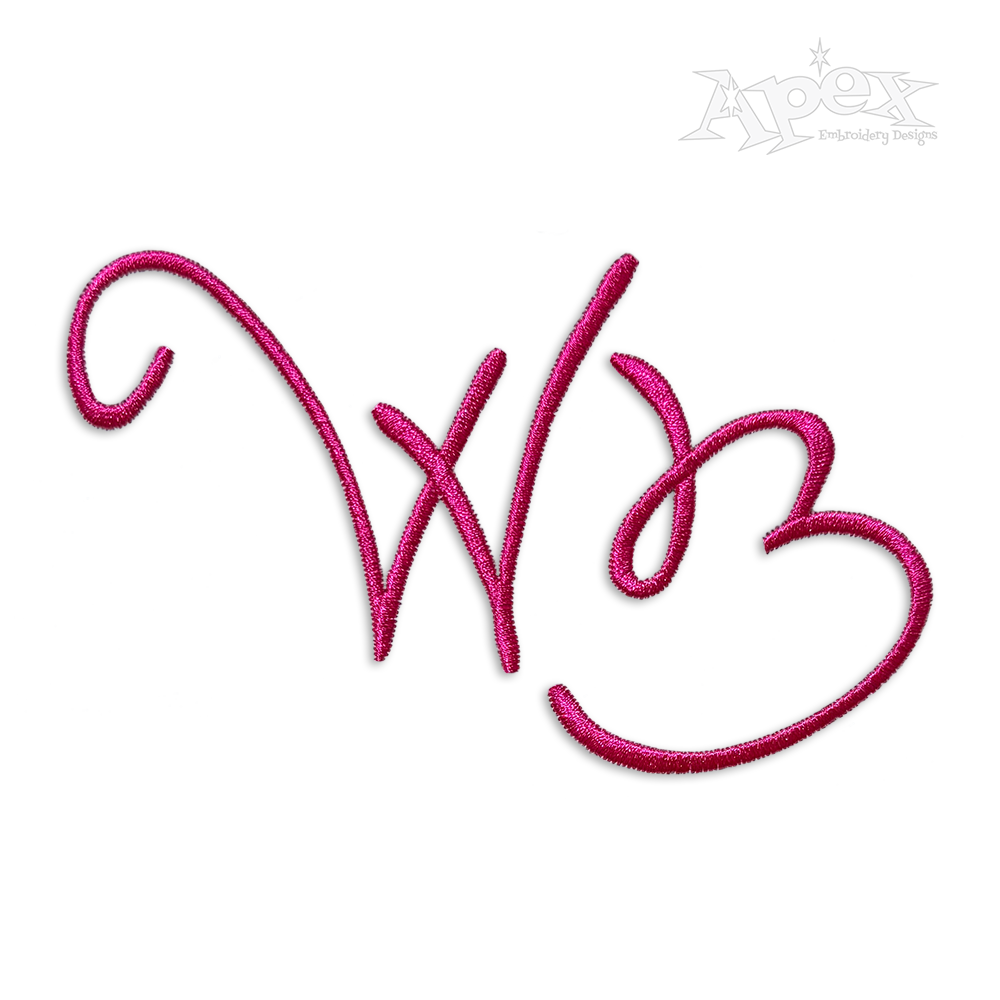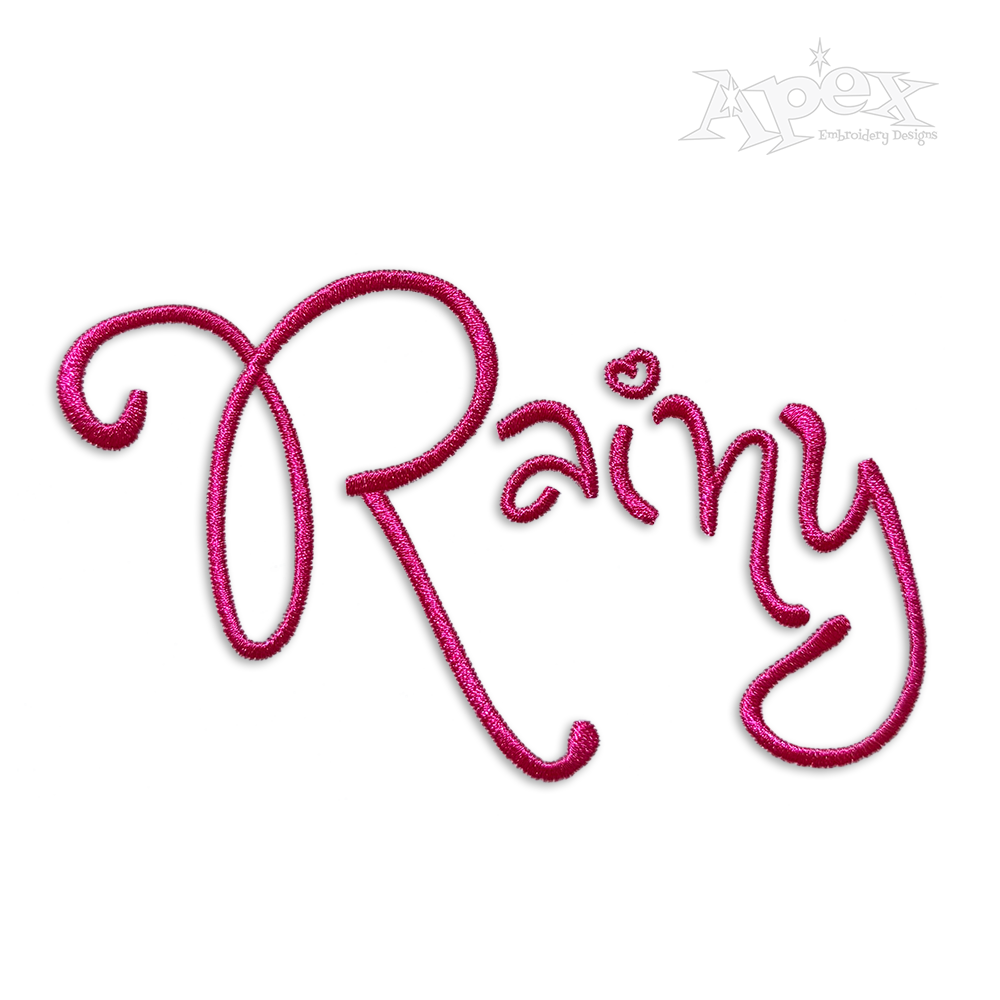
Monica Embroidery Fonts
There is a quiet, tailored romance to the Monica Embroidery Font—an alphabet born from an admiration for flowing calligraphy balanced with modern editorial restraint. When digitizing Monica, our intention was to translate the effortless fluidity of hand-drawn script into the tactile, lustrous world of embroidery thread. Every arch, loop, and taper has been carefully drafted to catch ambient light, turning woven textiles into bespoke works of heirloom art. From fresh linen suites to cherished keepsake garments, this design brings a timeless, personal soul to your embroidery hoop.
Monica Craft & Letterform Details
True embroidery artisanry relies on thoughtful digitizing that honors how physical thread moves under the needle. In Monica, each curve is mapped with dynamic stitch angles that follow the natural sweep of the pen stroke, generating a brilliant, unbroken sheen that flat digital renderings cannot replicate. The smooth transitions between graceful ascenders and sculpted downstrokes feature built-in push-and-pull compensation, safeguarding letterform balance across varying fabric weights. Deliberate underlay foundations lock the fabric weave in place before the top satin layer is laid down, preventing puckering and delivering crisp, raised edges that wash beautifully and endure for generations.